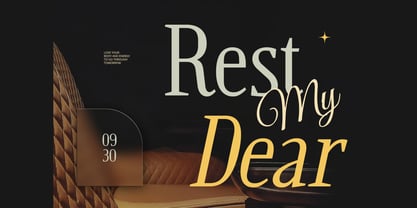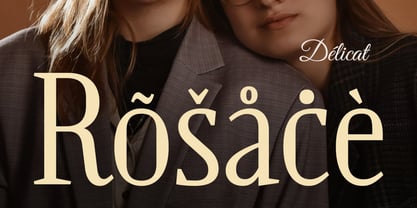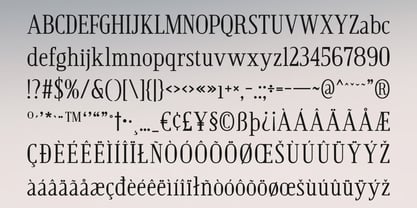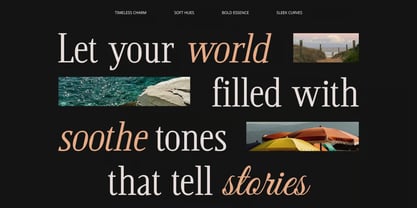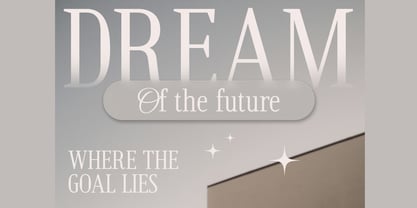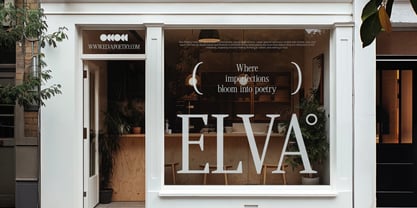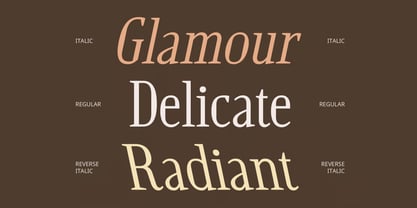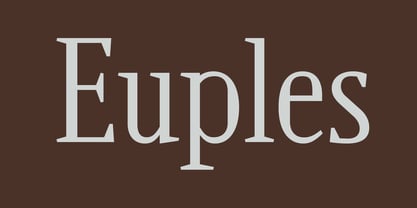
Euples
The Euples Font Family was designed by Hasnat Khan and published by Hasnat Studio. Euples contains 3 styles and family package options. More about this family
Euples is a modern classic serif font that beautifully combines timeless typography with contemporary sophistication. Featuring sharp, refined serifs, clean letterforms, and balanced proportions, Euples creates a polished and professional appearance that feels both elegant and highly readable.
Designed for creatives who appreciate the beauty of classic serif typography with a modern edge, Euples offers a versatile typographic style suitable for both traditional and contemporary design projects. Its carefully balanced contrast gives every word a refined visual presence without sacrificing clarity, making it an excellent choice for branding, editorial layouts, luxury packaging, fashion design, and digital projects.
With its sophisticated structure and timeless character, Euples adapts effortlessly to a wide range of creative applications. Whether you're designing a high-end fashion identity, magazine layout, website headline, book cover, or premium brand campaign, Euples adds an elegant and professional touch to every composition.
✿ Key Features:
• Modern Classic Serif Design: Combines traditional serif elegance with contemporary typography.
• Sharp & Refined Serifs: Distinctive serif details create a sophisticated and premium appearance.
• Clean Letterforms: Carefully designed characters provide excellent readability and visual clarity.
• Balanced Typography: Harmonious proportions create a polished and professional look.
• Regular, Italic & Reverse Italic: Three versatile styles for creative typographic compositions.
• Uppercase & Lowercase Characters: Complete alphabet for flexible design applications.
• Numerals & Punctuation: Essential characters for professional branding and editorial projects.
• Multilingual Support: Accented characters for a wider range of language requirements.
• Print & Digital Friendly: Suitable for both traditional print and modern digital design.
✿ Perfect For:
• Luxury Branding & Logo Design: Create sophisticated and memorable brand identities.
• Editorial & Magazine Design: Perfect for headlines, articles, fashion editorials, and magazine covers.
• Fashion Branding: Adds a refined and high-end aesthetic to fashion identities and campaigns.
• Book Covers & Publishing: Ideal for novels, journals, literary projects, and premium publications.
• Website & Digital Design: Excellent for elegant headlines, landing pages, and creative websites.
• Luxury Packaging: Perfect for cosmetics, perfumes, skincare, jewelry, and premium products.
• Business Stationery: Enhance business cards, letterheads, presentations, and professional materials.
• Advertising & Marketing: Create polished promotional campaigns with timeless typography.
Elevate your creative projects with Euples—a modern classic serif font that combines sharp refined serifs, clean letterforms, and timeless elegance with a contemporary edge. With Regular, Italic, and Reverse Italic styles, Euples is the perfect choice for luxury branding, fashion editorials, magazine layouts, book covers, packaging, web design, and sophisticated visual identities.